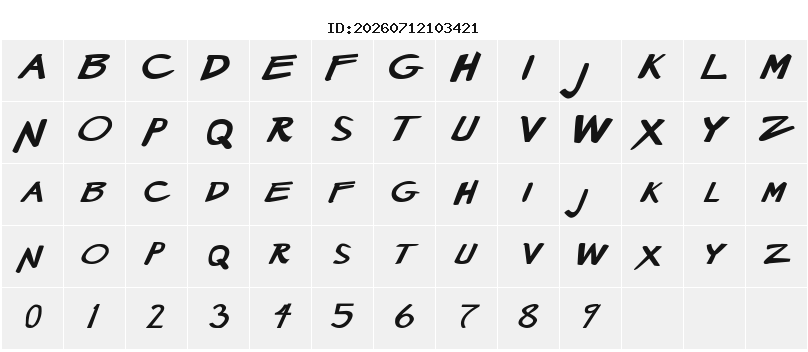
Manga speak 2 stocky Preview
• Font Name: Manga speak 2 stocky
• Font Style: Gras Italique
• Font ID: Manga speak 2 stocky Bold Italic:Version 1.00
• Full Font Name: Manga speak 2 stocky Bold Italic
• Version: Version 1.00 March 30, 2014, initial release
• PostScript Name: Mangaspeak2stocky-BoldItalic
About Manga speak 2 stocky.ttf
Manga speak 2 stocky.ttf is a modern, elegant sans-serif font designed for ultimate readability and visual harmony. Perfect for branding, headlines, web design, and print materials.